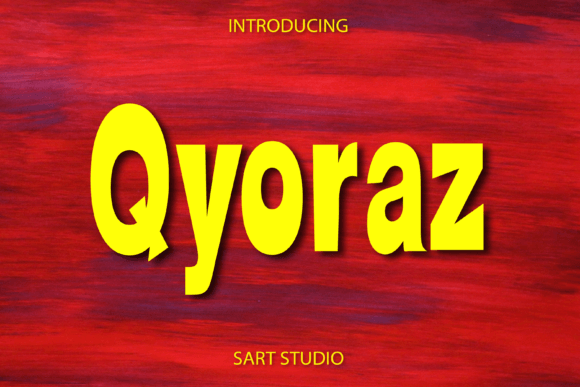
Step into the world of Qyoraz, a captivating display font that will ignite your creativity and captivate your audience. Leaving bland and ordinary fonts behind, Qyoraz bursts onto the scene, ready to transform your designs into extraordinary masterpieces. Let the energy of Qyoraz fuel your imagination and leave a lasting impression with every word you display!
With its bold and playful personality, Qyoraz is the perfect choice for making a statement. Its unique letterforms dance off the page, grabbing attention and demanding to be seen. Whether you're creating eye-catching headlines, dynamic posters, or striking logos, Qyoraz is the font that will make your words shine.
Gone are the days of settling for conventional fonts that blend into the background. Qyoraz is a rebel, a game-changer that refuses to be ignored. Its mesmerizing curves and playful strokes infuse your designs with an infectious energy that keeps your audience engaged and eager for more.
Qyoraz is more than just a font; it's an experience. It's a journey into the realm of boundless creativity, where your imagination runs wild and your designs come alive. With Qyoraz at your disposal, you have the power to evoke emotions, convey messages, and create a lasting impact.
As a versatile performer, Qyoraz effortlessly adapts to diverse design styles, adding a touch of magic to every project. From sleek and modern layouts to whimsical and playful designs, Qyoraz blends seamlessly, enhancing your creations with its inherent charm.
Don't let your designs settle for mediocrity. Embrace the boldness of Qyoraz, and watch as your words leap off the screen, captivating your audience and leaving them in awe. Whether you're a seasoned designer or just starting your creative journey, Qyoraz is the font that will ignite your passion and unleash your true potential.